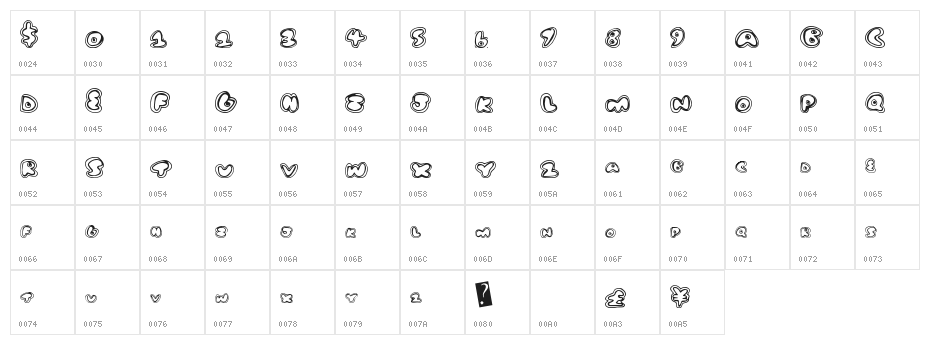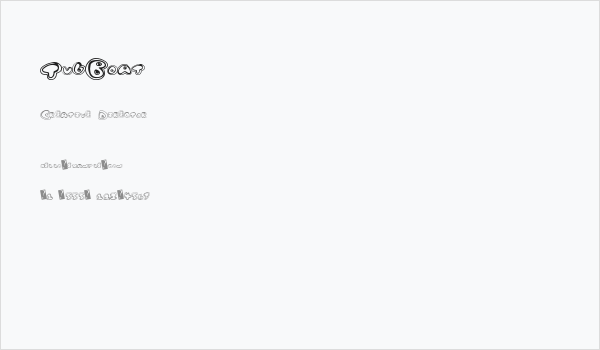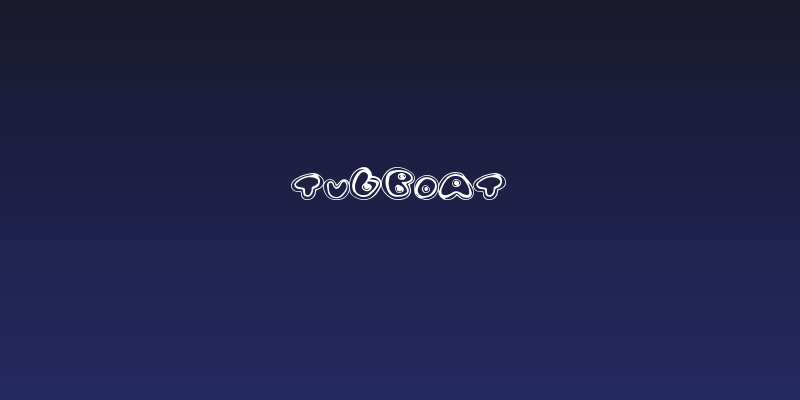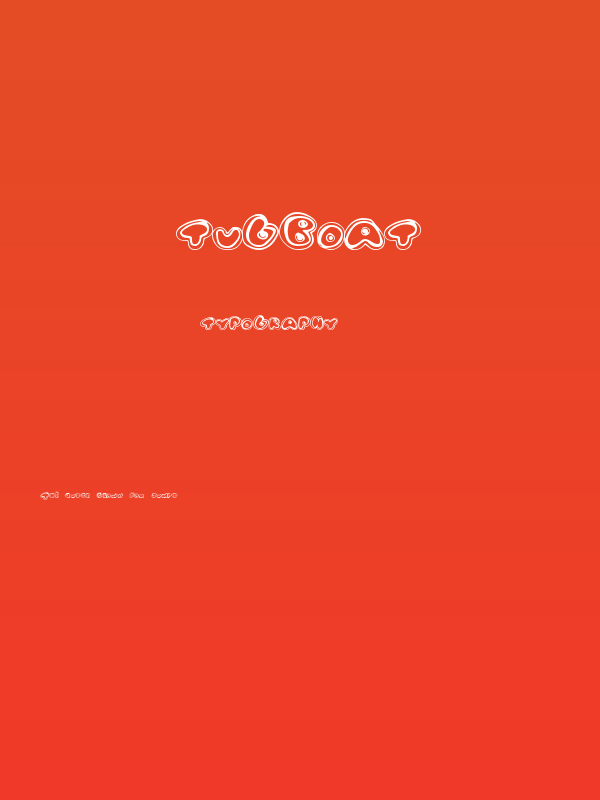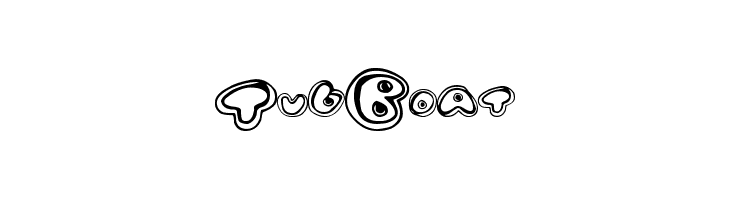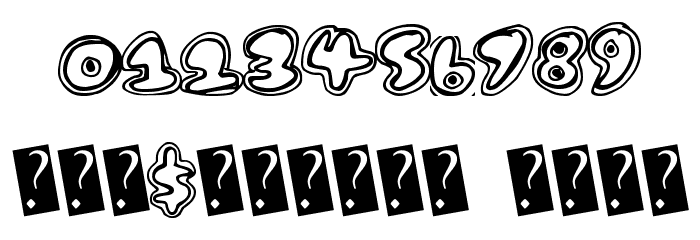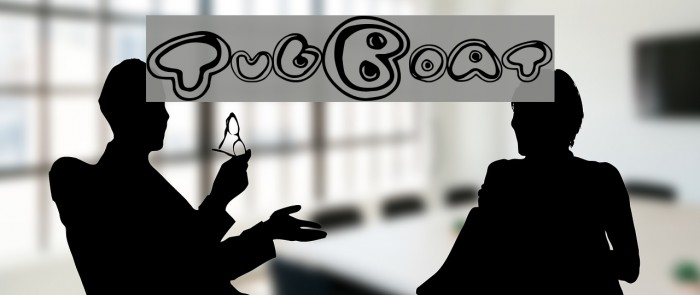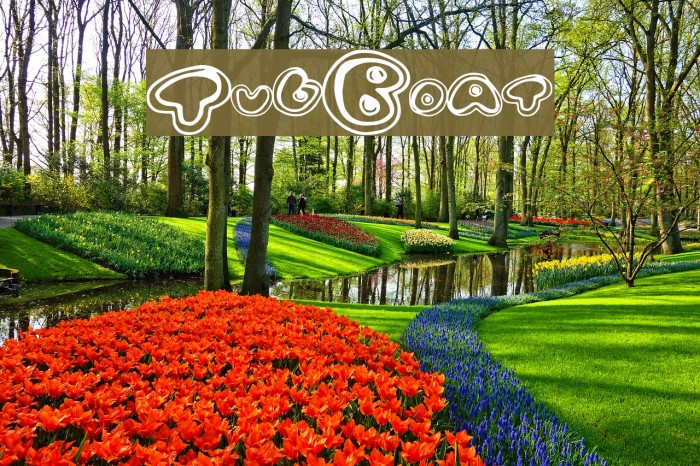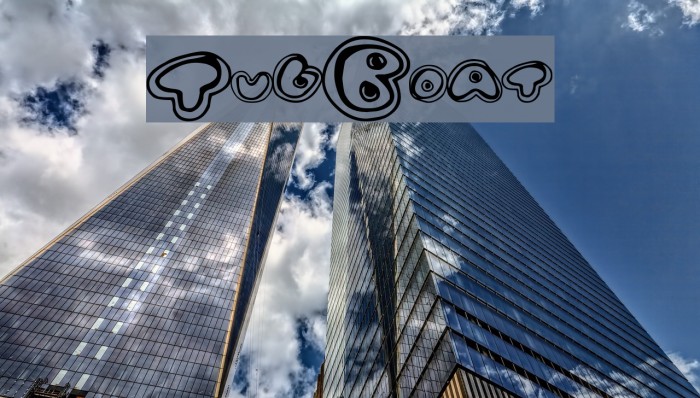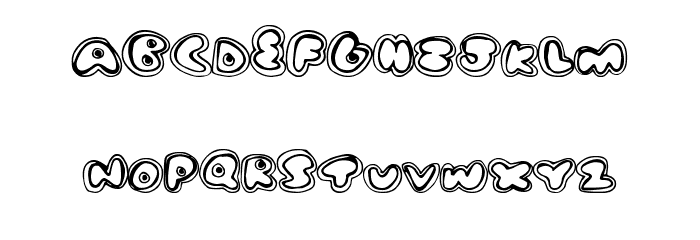
TugBoat Font
TugBoat Description
This playful and bold font features a bubble-like design with thick outlines that give it a cartoonish and fun appearance. The characters are rounded and slightly irregular, adding a whimsical touch. The uppercase and lowercase letters maintain a consistent style, with the numbers and special characters following suit. The font's unique style makes it stand out, making it ideal for creative and informal projects. Its boldness ensures visibility and impact, while the outlined design adds a layer of depth and interest.
| Overall Style | Playful, Cartoonish |
| Proposed Projects | Ideal for children's book covers, playful branding, party invitations, and comic-style graphics. |